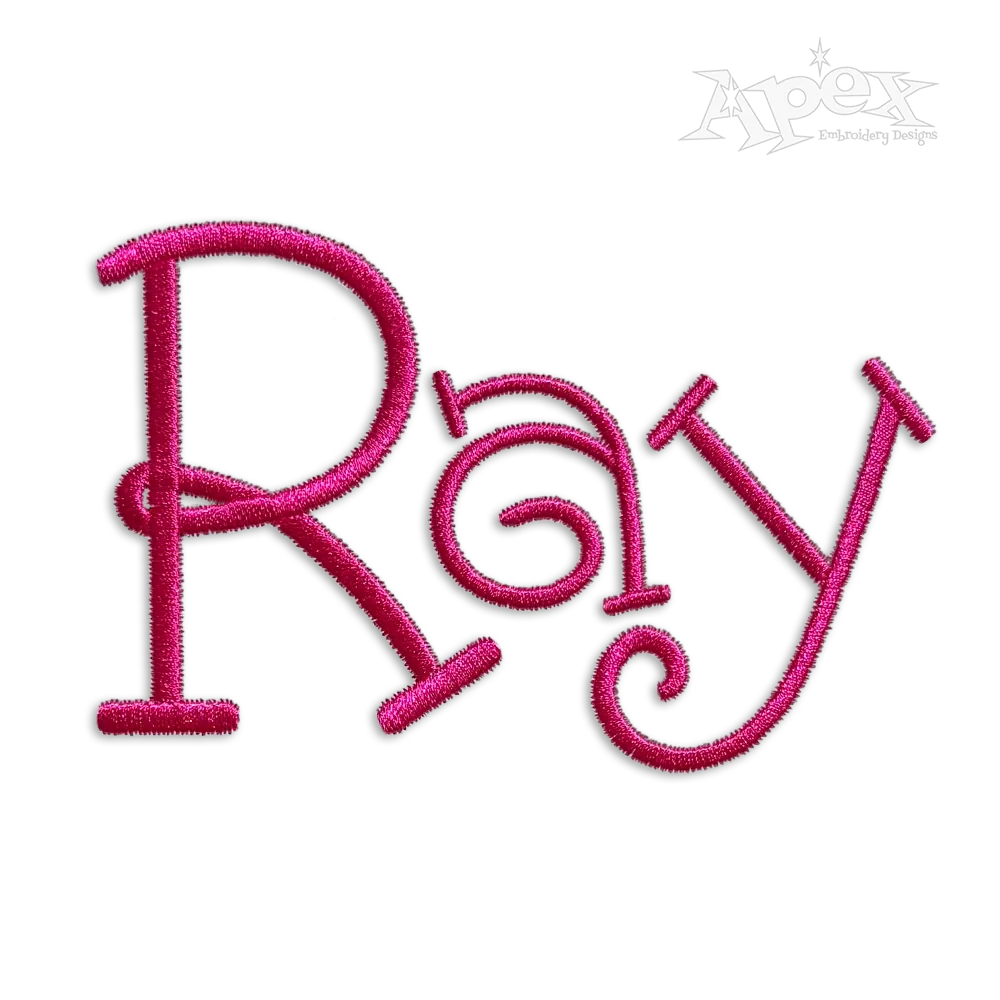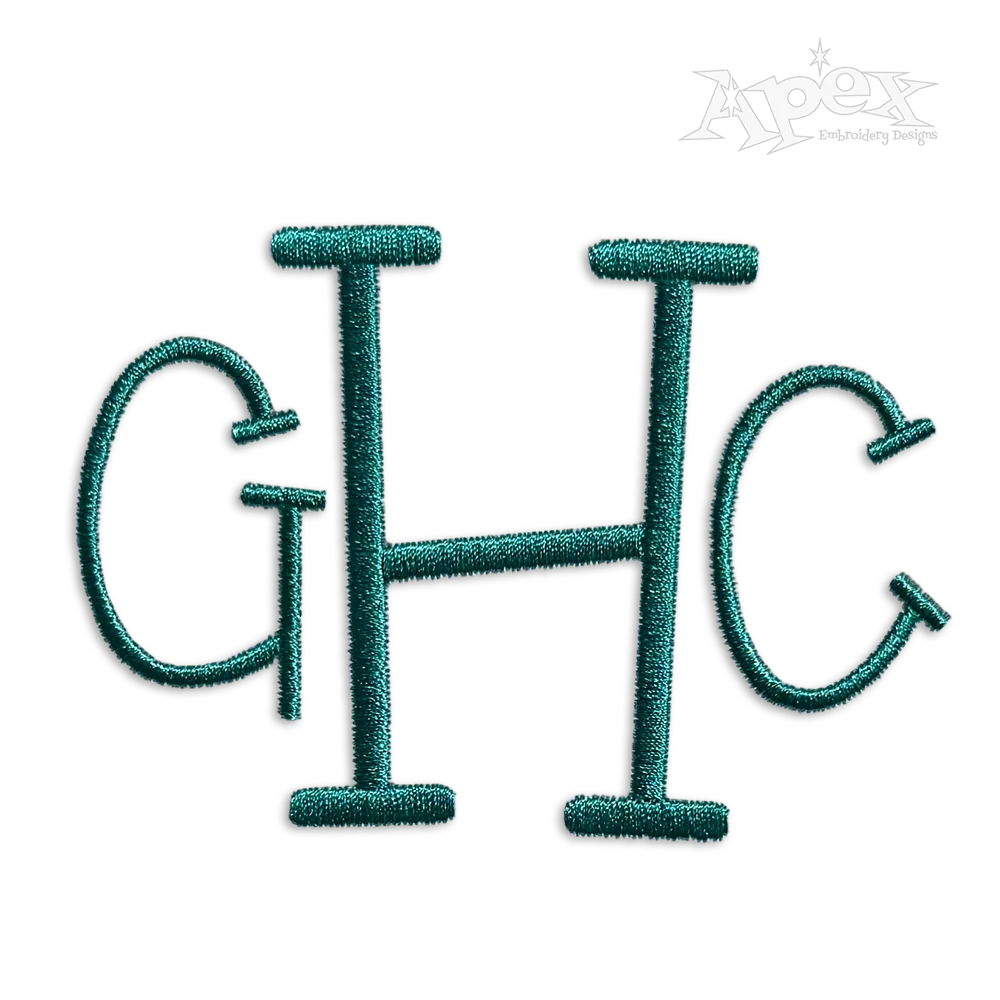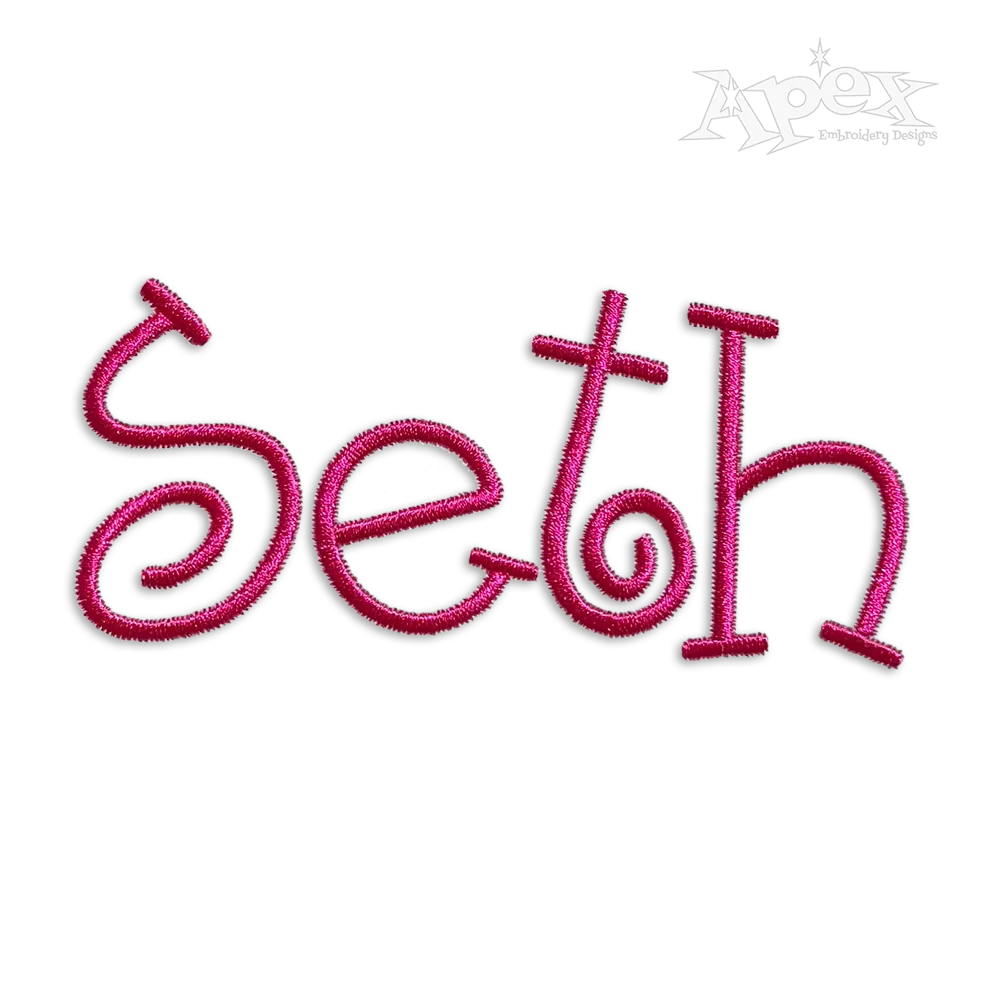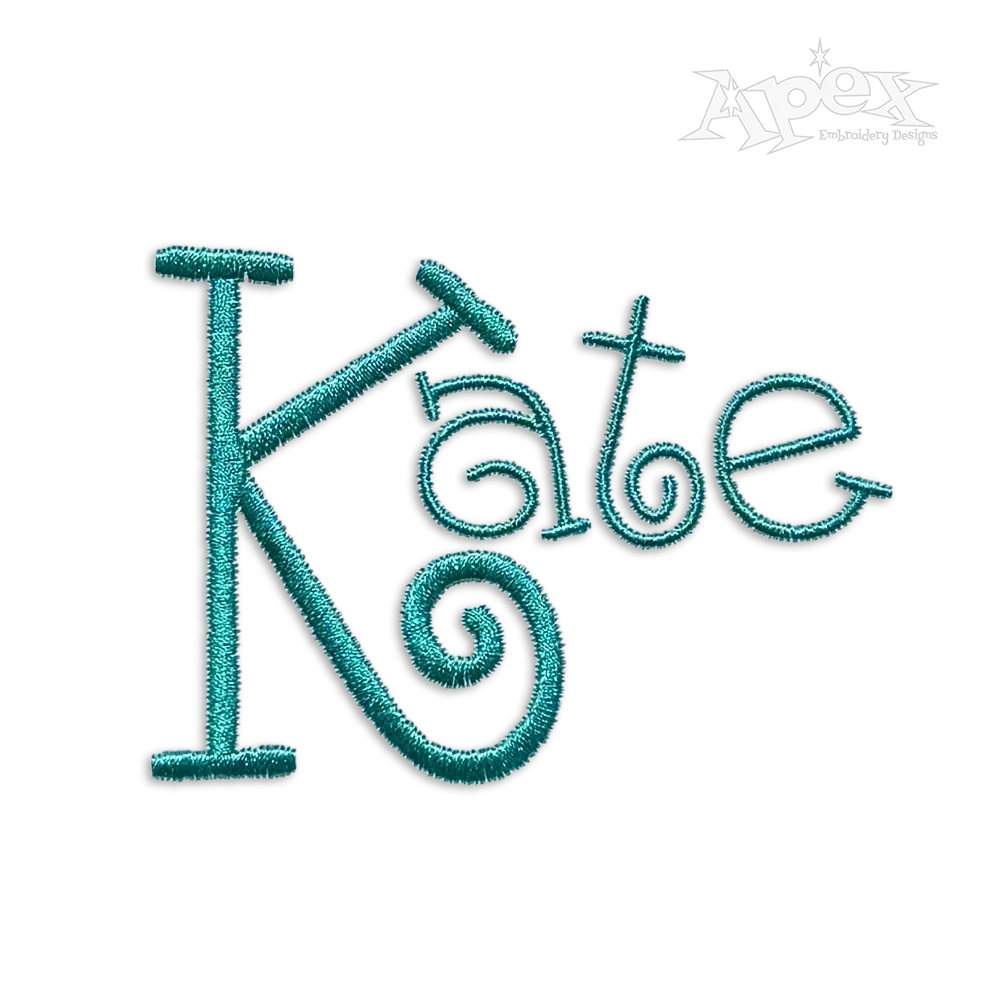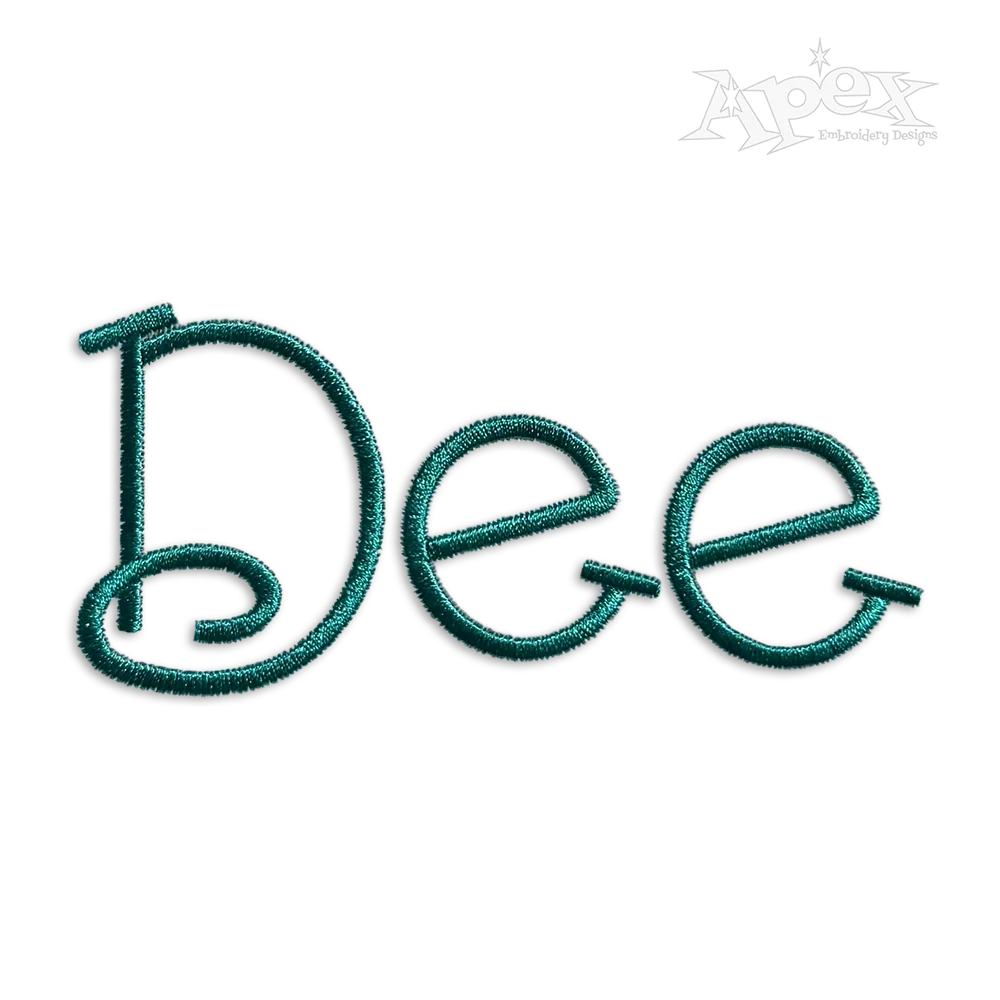
Martini Embroidery Font
Envision mid-century cocktail lounges, the gentle clink of crystal stemware, and the timeless allure of an evening spent in celebration. The Martini Embroidery Font was digitized to capture that golden-age supper club charm, blending clean, modern sophistication with a spirited, playful personality. Designed for the entertainer at heart, this typography suite brings poised elegance to personalized gifting and custom monogramming, inviting you to elevate ordinary textiles into bespoke conversation pieces tailored for soirees, bar carts, and sunlit cabanas.
This coordinated embroidery collection provides precisely matched proportions for balanced monograms and delightful cocktail accents:
- Uppercase Letters: 3-inch stitch height, commanding presence with refined proportions.
- Lowercase Letters: 1.5-inch stitch height, engineered to nest seamlessly alongside the capitals.
- Martini Glass Motifs: 3 distinct sizes, digitized to accompany names, single initials, or standalone motifs.
Project Ideas for Martini Embroidery Font
Infuse a splash of spirited luxury into your entertaining essentials with projects that showcase this font's celebratory vibe:
- Luxury Table Linens: Embroider the corner of hemstitched linen cocktail napkins, matching guest towels, and runner ends for dinner parties.
- Bespoke Resort Wear: Stitch casual monograms onto linen cabana shirts, summer robe lapels, or lightweight lounge jackets.
- Personalized Bar Cart Accessories: Create customized bar aprons, canvas wine caddies, and cocktail shaker cozies.
- Celebration & Bridal Gifting: Perfect for bachelorette party beach bags, bridesmaid loungewear, or celebratory anniversary gifts for the mixology enthusiast.
- Outdoor Entertaining: Accent plush patio cushions, poolside beach towels, or canvas tote bags for sunset picnics.
The sleek geometry of this font and its accompanying cocktail motifs opens up creative layout possibilities across table textiles and apparel:
- Napkin Corner Diagonal: Position an uppercase initial paired with a martini glass at a 45-degree angle in the corner of a square cocktail napkin, keeping it approximately 1.5 inches from the hemstitched edge.
- Left Chest Pocket: Center a playful initial-and-glass combo on a shirt pocket or just above the pocket line on resort apparel.
- Stacked Monograms: Align a primary uppercase initial flanked by a miniature martini glass just below, creating an emblem effect on bar towels or canvas totes.
- Pillow & Throw Accent: Feature a bold, single 3-inch initial in the center of an accent pillow for a playful home bar lounge aesthetic.
Martini Embroidery Font Craft & Letterform Details
Every character in the Martini Embroidery Font is built with an eye for rhythm, balance, and fluid stitch motion. The letterforms draw inspiration from retro-modern typography, pairing crisp vertical stems with smooth, arching curves that celebrate clean line work. We deliberately digitized each element with multi-directional satin columns, allowing light to play across the stitches and mirror the reflective qualities of glassware and fine cocktail garnishes. Carefully calibrated underlay ensures density and stability without bulk, allowing the lettering to glide across crisp linen, fine cotton lawn, and waffle weaves with uniform clarity and zero puckering.